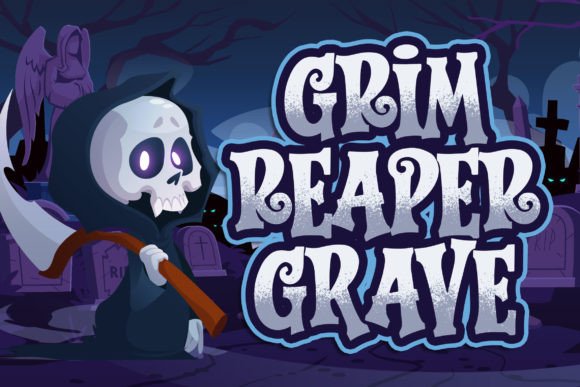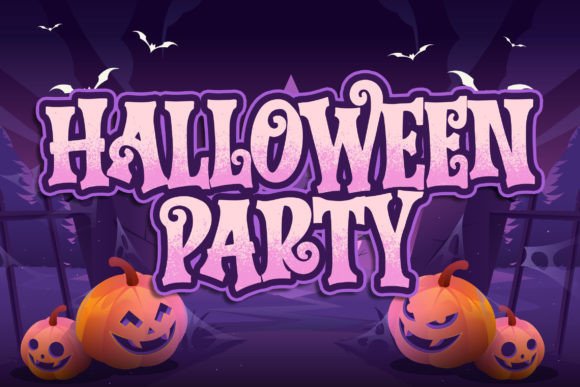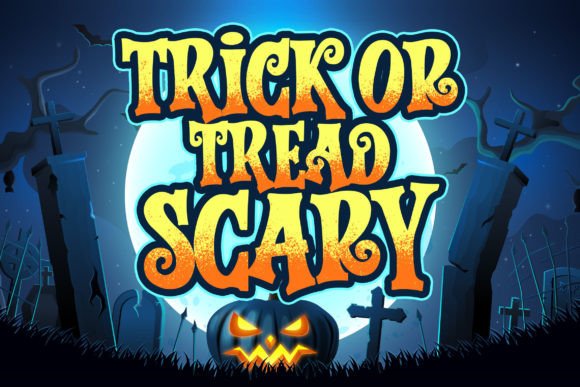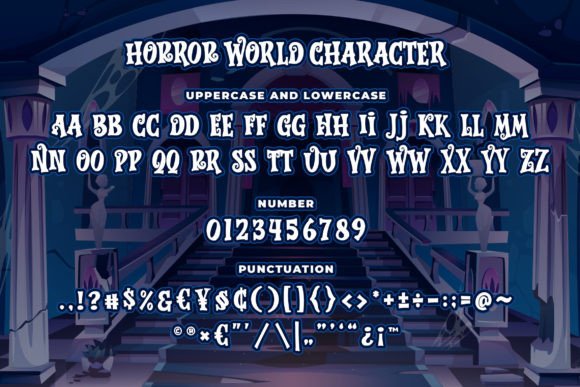
Introduction to Horror World Font
As a designer, there’s nothing quite like the rush of creating something new and exciting for a client or personal project. It’s that moment when your imagination runs wild, and you envision the perfect design that will leave a lasting impression. For many, that perfect design is one that captures the essence of horror and Halloween – a time of year when creativity knows no bounds and the ordinary becomes extraordinary.
Whether you’re working on a book cover, comic, or packaging design, you need a font that can match the intensity and playfulness of your creative project. That’s where the Horror World Font comes in – a high-quality, bouncy serif font that’s perfect for designers looking to create something truly unique. With its transparent background and free download option, this design resource is a valuable addition to any designer’s toolkit.
Key Features of Horror World Font
- Unique Gothic-inspired design, ideal for a high quality creative project
- Available in 7 font styles, including bold and italic options, to enhance the spooky atmosphere
- Comes with a transparent background, making it easy to integrate into any design resource
- Perfect for designing horror-themed posters, logos, and other design elements, adding a touch of eeriness to any creative project
Honest Review: Horror World Font
I recently stumbled upon the Horror World Font, and I must say, it’s a fantastic addition to any creative project. The font exudes a spooky, eerie vibe that’s perfect for Halloween-themed designs, horror movies, or even eerie music posters.
- High-quality design: The font is crisp and well-crafted, making it perfect for printing or digital use.
- Transparent background: This allows for seamless integration with any design element, giving you complete control over the look and feel.
- Limited versatility: While the font is perfect for horror-themed designs, it might not be the best choice for more general use.
- No bold/italic options: For some projects, it would be nice to have bold or italic versions of the font to add variety.
Overall, I’m impressed with the Horror World Font. It’s a great design resource for anyone working on a creative project that requires a spooky or eerie atmosphere. With its high-quality design and transparent background, it’s a must-have for any designer looking to add a touch of horror to their work.
Use Horror World Font to create a spooky atmosphere for your project. Experiment with different font sizes and styles to create a unique design. You can also use the font in combination with other design elements to create a cohesive look.
Horror World Font is commonly used for horror-themed projects, such as Halloween decorations, spooky invitations, and haunted house designs. It’s also a great resource for creating a mysterious or eerie atmosphere for your project.
Q: Does the Horror World Font have a transparent background?
Yes, the Horror World Font has a transparent background, making it perfect for use on dark or textured backgrounds. The font is designed to be highly legible and visible, even on complex backgrounds.
Q: Can I customize the Horror World Font?
Yes, you can customize the Horror World Font to suit your needs. The font is fully editable, and you can use design software like Adobe Illustrator to modify the font’s appearance, including the color, size, and style.